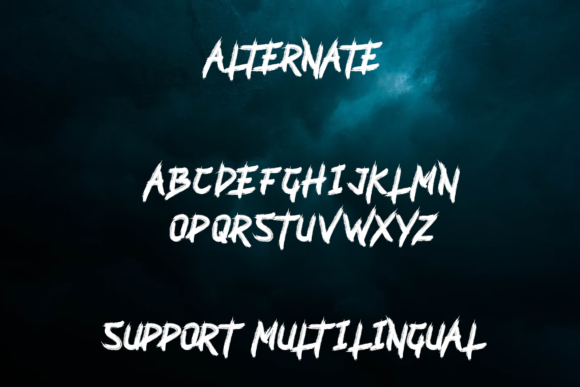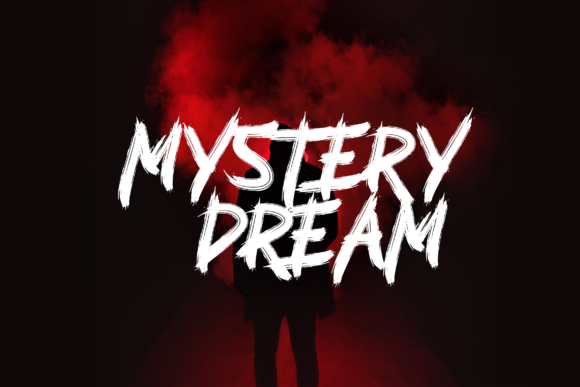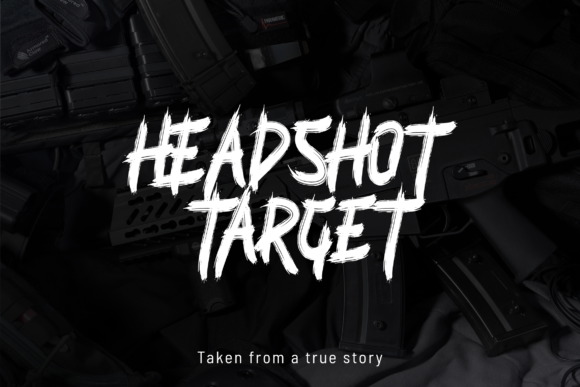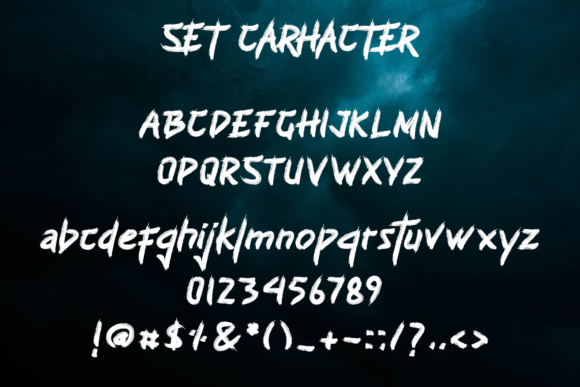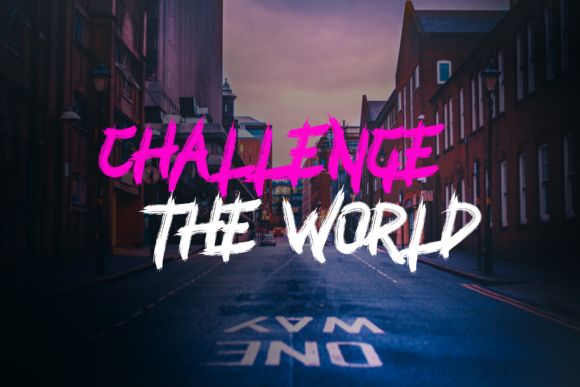
Introduction to Merathus Font
Have you ever been working on a creative project, pouring your heart and soul into it, only to feel like something’s missing? You’ve got the perfect concept, the right message, but the visual element just doesn’t quite fit? That’s where the Merathus Font comes in – a game-changing design resource that can elevate your entire project.
With its unique and assertive style, Merathus Font is perfect for fashion magazines, logos, photography, landing pages, flyers, and more. Its high-quality design makes it a valuable asset for designers looking to add a touch of sophistication to their work. And the best part? You can download it for free, giving you the freedom to experiment and explore its full potential.
Whether you’re a seasoned pro or just starting out, the Merathus Font is an essential addition to your design toolkit. Its transparent background and versatile design make it easy to integrate into any project, from bold and eye-catching to subtle and understated.
Key Features of Merathus Font
- High-quality font with a unique, modern design perfect for creative projects.
- Transparent background, allowing for seamless integration with images and other design elements.
- Designed to be highly legible, even at small font sizes, making it ideal for use in a variety of creative projects.
- Comes with a comprehensive character set, including a wide range of languages and symbols.
Honest Review: Merathus Font
As a designer, I’m always on the lookout for high-quality design resources that can elevate my creative projects. The Merathus Font is one such find that has impressed me with its elegant and sophisticated design.
What works well is the font’s versatility – it can be used for a wide range of creative projects, from branding and advertising to editorial and digital design. The font is also available for free download, making it a great resource for designers on a budget.
Some of the standout features of the Merathus Font include:
- ✨ Elegant and sophisticated design
- ✨ High-quality vector graphics
- ✨ Transparent background for easy customization
- ✨ Perfect for creative projects that require a touch of elegance
However, I did notice a few limitations with the font. The Merathus Font is not ideal for use in small text sizes, as the letters can become difficult to read. Additionally, the font may not be suitable for use in certain cultural or linguistic contexts.
Overall, I’m impressed with the Merathus Font and would recommend it to designers looking for a high-quality, elegant font for their creative projects. With its transparent background and versatile design, it’s a great addition to any design resource library.
Tips for Getting the Most Out of Merathus Font
To get the most out of Merathus Font, use it in conjunction with high-quality images and graphics. Experiment with different font sizes, colors, and styles to create a unique and eye-catching design. The transparent background of this font makes it ideal for creating overlays and adding depth to your designs.
Merathus Font is perfect for creative projects such as logos, business cards, brochures, and social media graphics. It’s also ideal for use in presentations, documents, and websites that require a unique and professional touch.